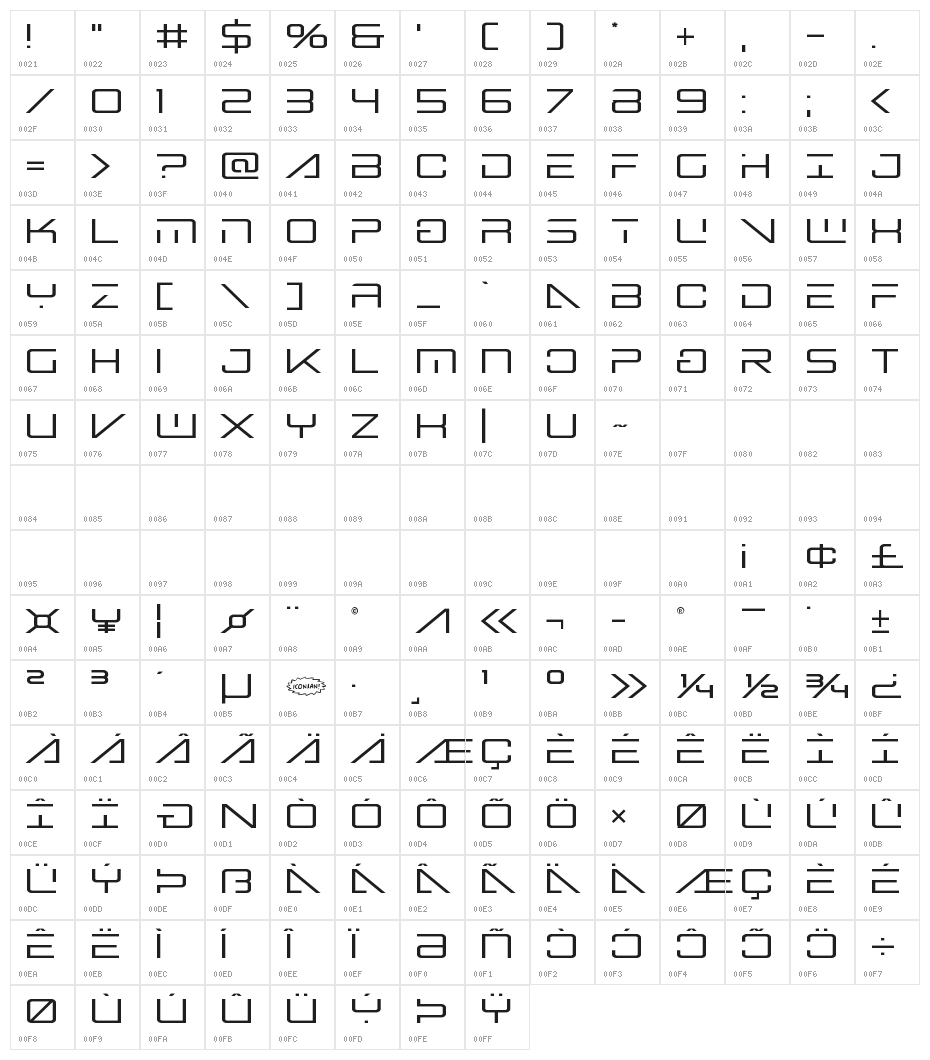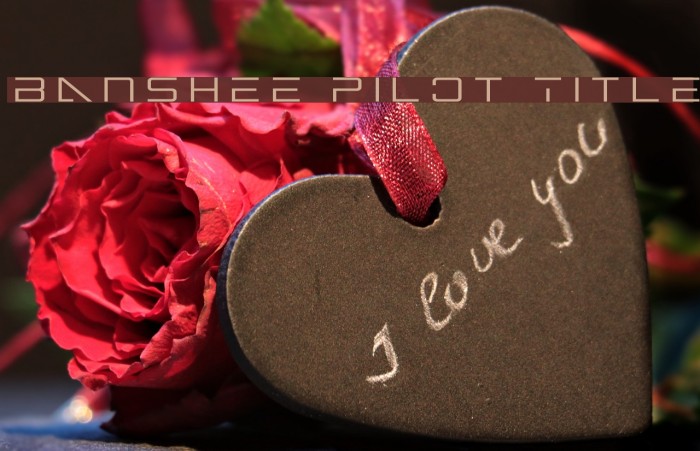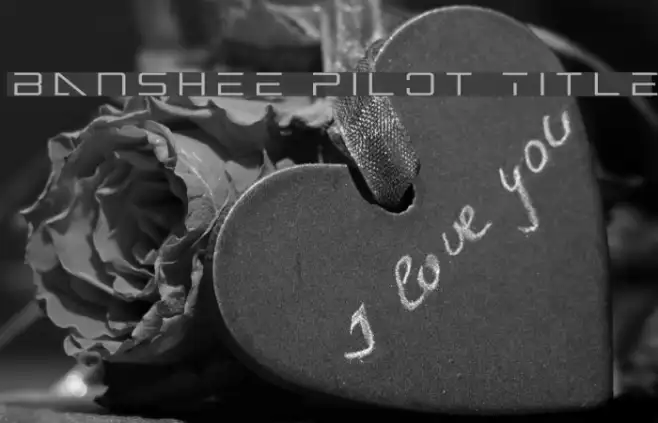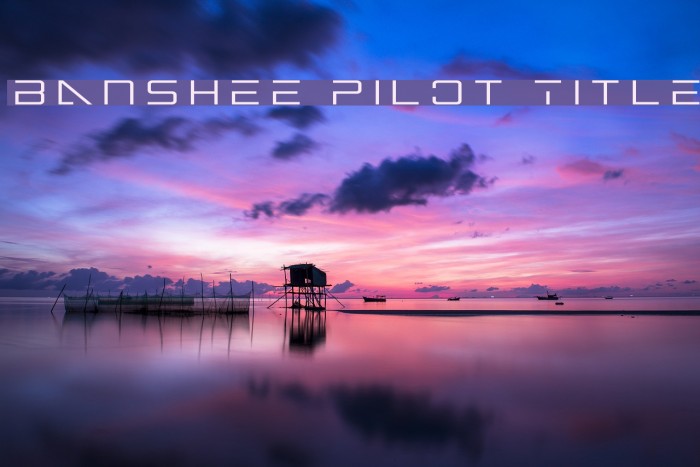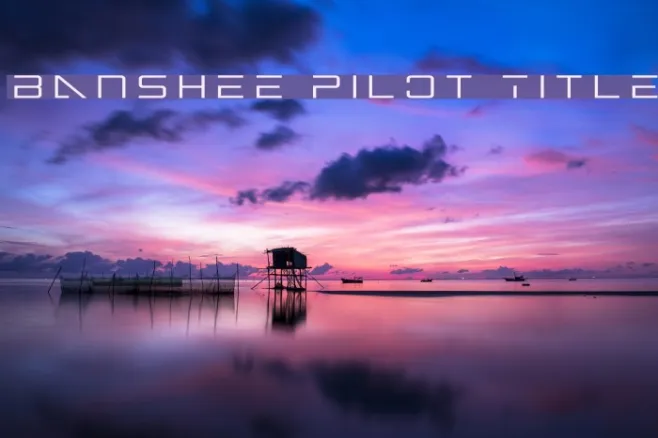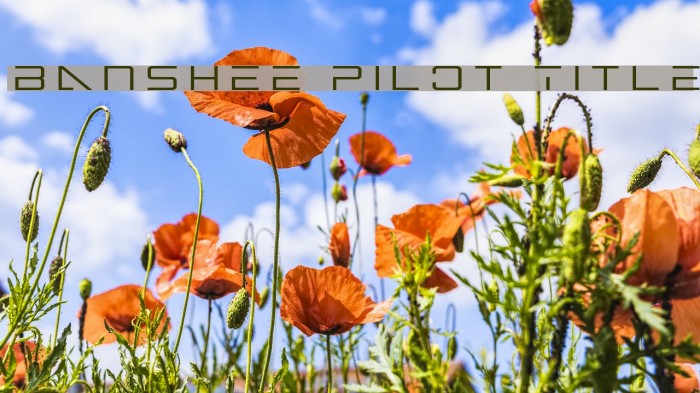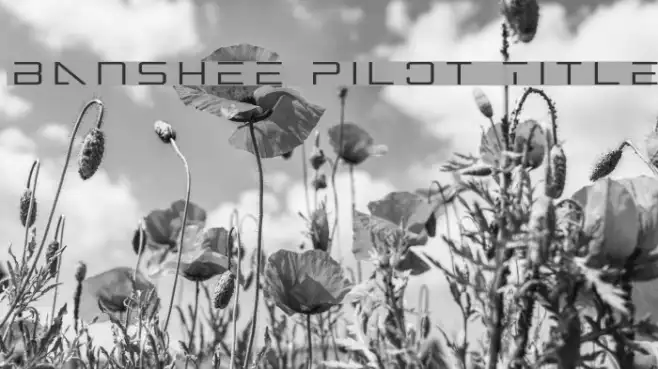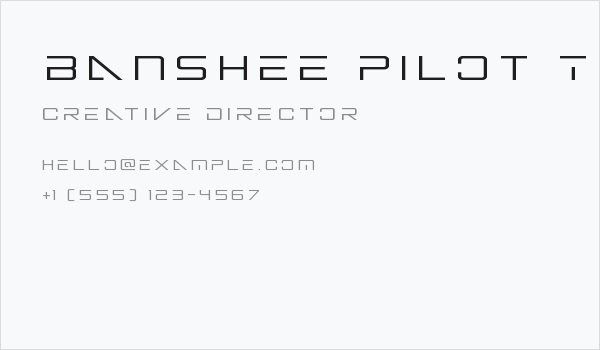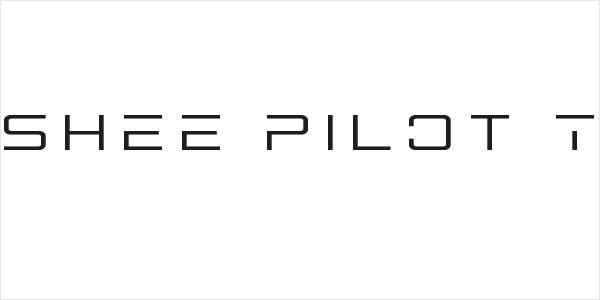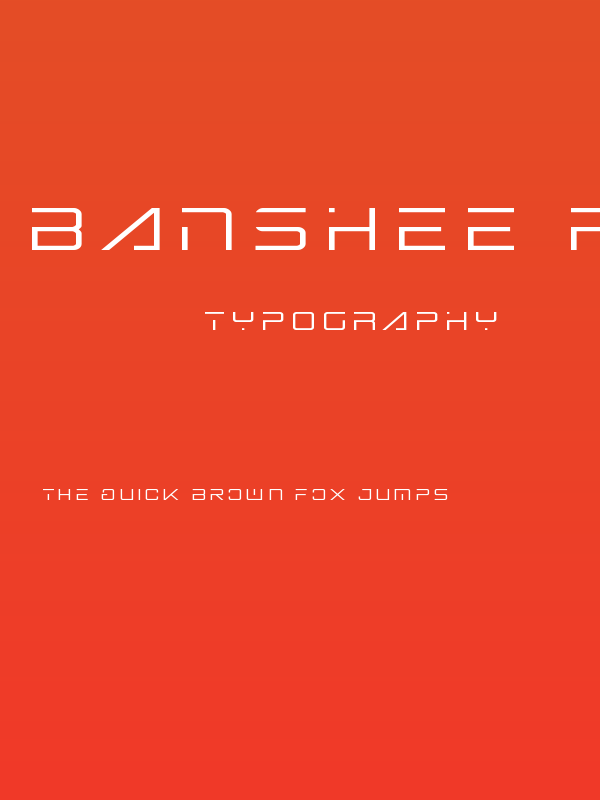
Banshee Pilot Title Font
Banshee Pilot Title Description
This font features a futuristic and geometric design, characterized by its angular and sharp edges. The uppercase letters are distinct with a modern, tech-inspired look, while the lowercase letters maintain a consistent style that complements the uppercase. The numerals are clear and easy to read, following the same geometric pattern. Special characters are designed to match the overall aesthetic, making this font suitable for digital and tech-related projects. The uniformity in stroke width gives it a clean and sleek appearance, ideal for conveying a sense of innovation and modernity.
| Proposed Projects | Ideal for tech branding, digital interfaces, video game titles, and sci-fi themed projects. |